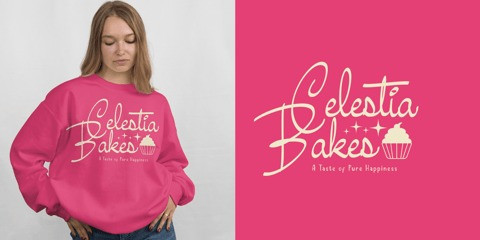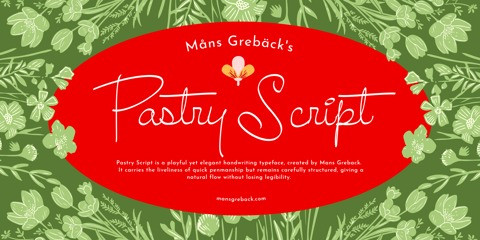
Pastry Script Font
Pastry Script Font is a playful yet elegant handwriting typeface, created by Mans Greback. It carries the liveliness of quick penmanship but remains carefully structured, giving a natural flow without losing legibility.
The letters connect with smooth, sweeping ligatures, and the slightly exaggerated loops add a lighthearted personality. Despite its playful appearance, it has a refined balance that makes it versatile, moving easily between casual and sophisticated contexts.
Pastry Script is an extensive family, provided in 18 styles in a variety of widths and weights. It also comes as a Variable Font, for precision usage with hundreds of options.
The font is built with advanced OpenType functionality and guaranteed top-notch quality, containing stylistic and contextual alternates, ligatures and more automatic and manual features; all to give you full control and customizability.
It has extensive lingual support, covering all Latin-based languages, from North Europa to South Africa, from America to South-East Asia. It contains all characters and symbols you’ll ever need, including all punctuation and numbers.
Designed with a deep sense of calligraphic rhythm, Pastry Script captures the spontaneous beauty of hand-drawn writing, while offering the precision and reliability expected from a professional typeface by Mans Greback.